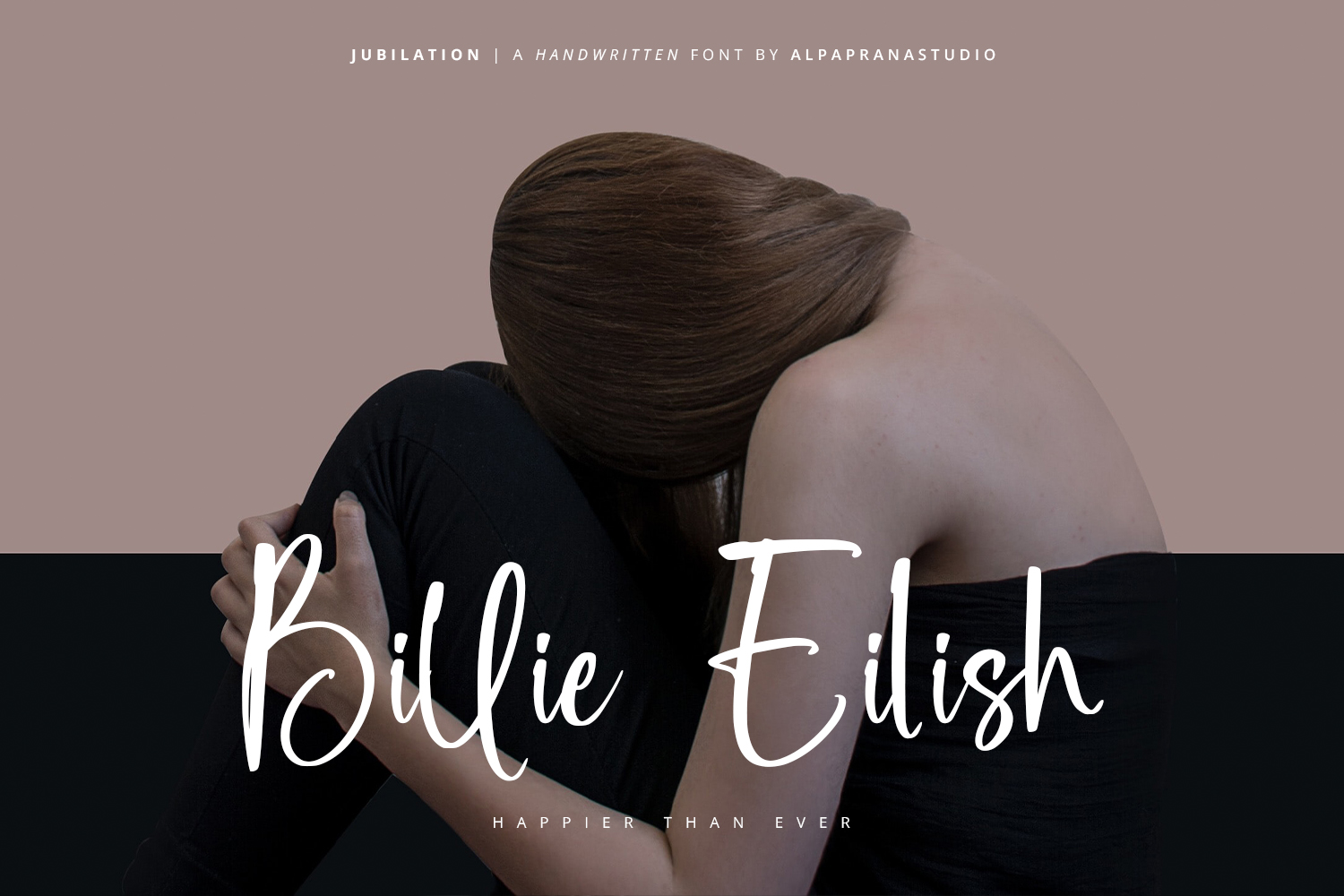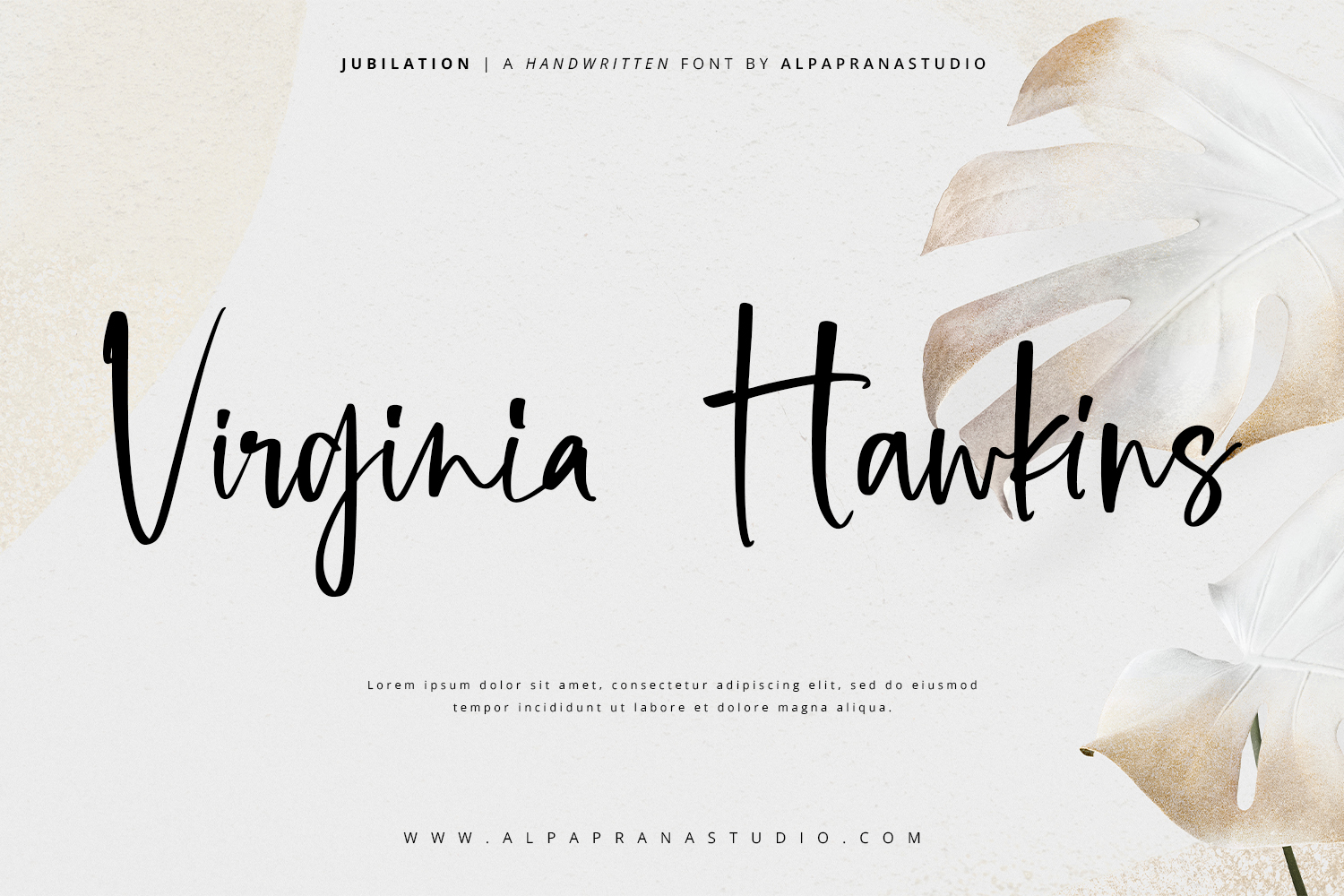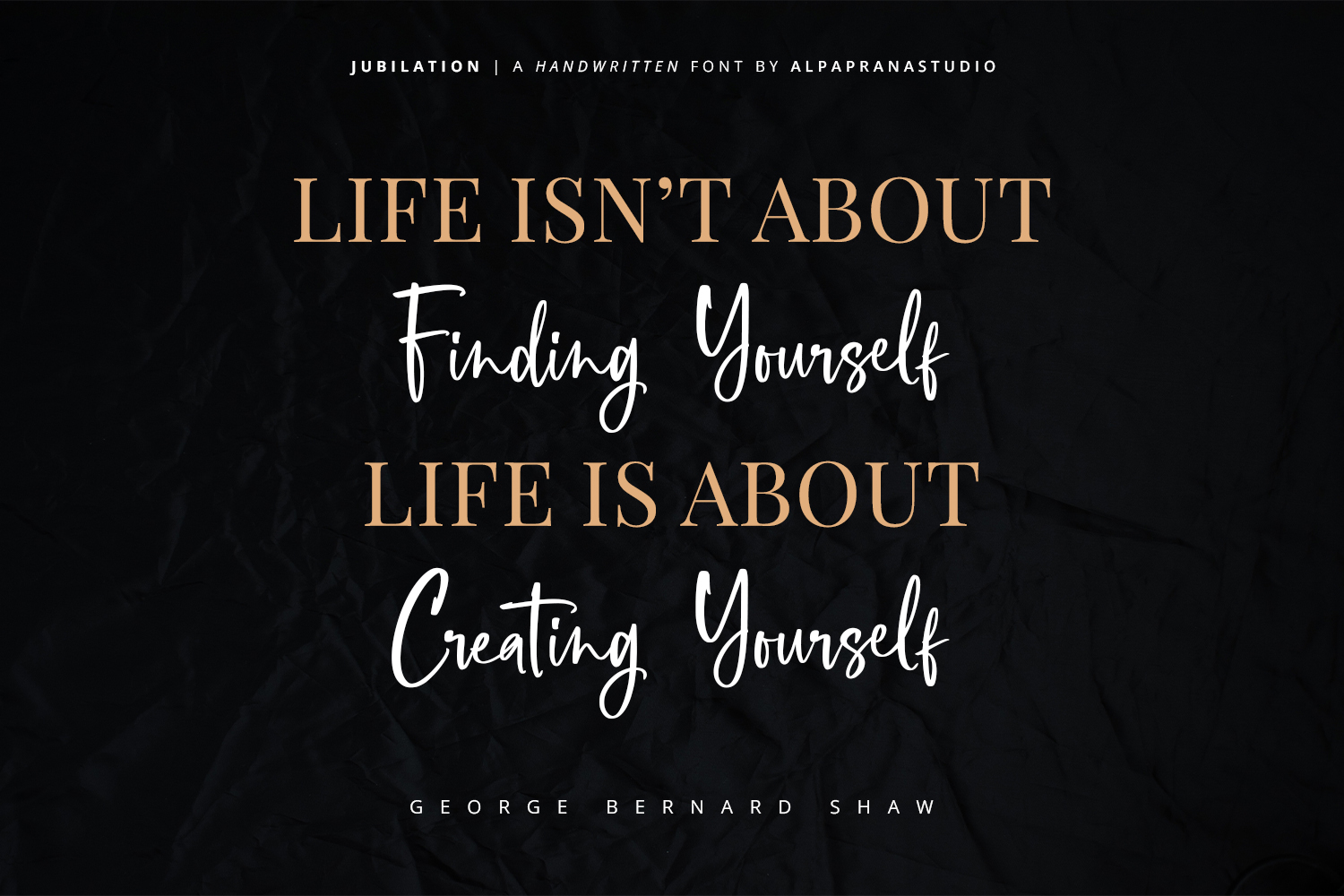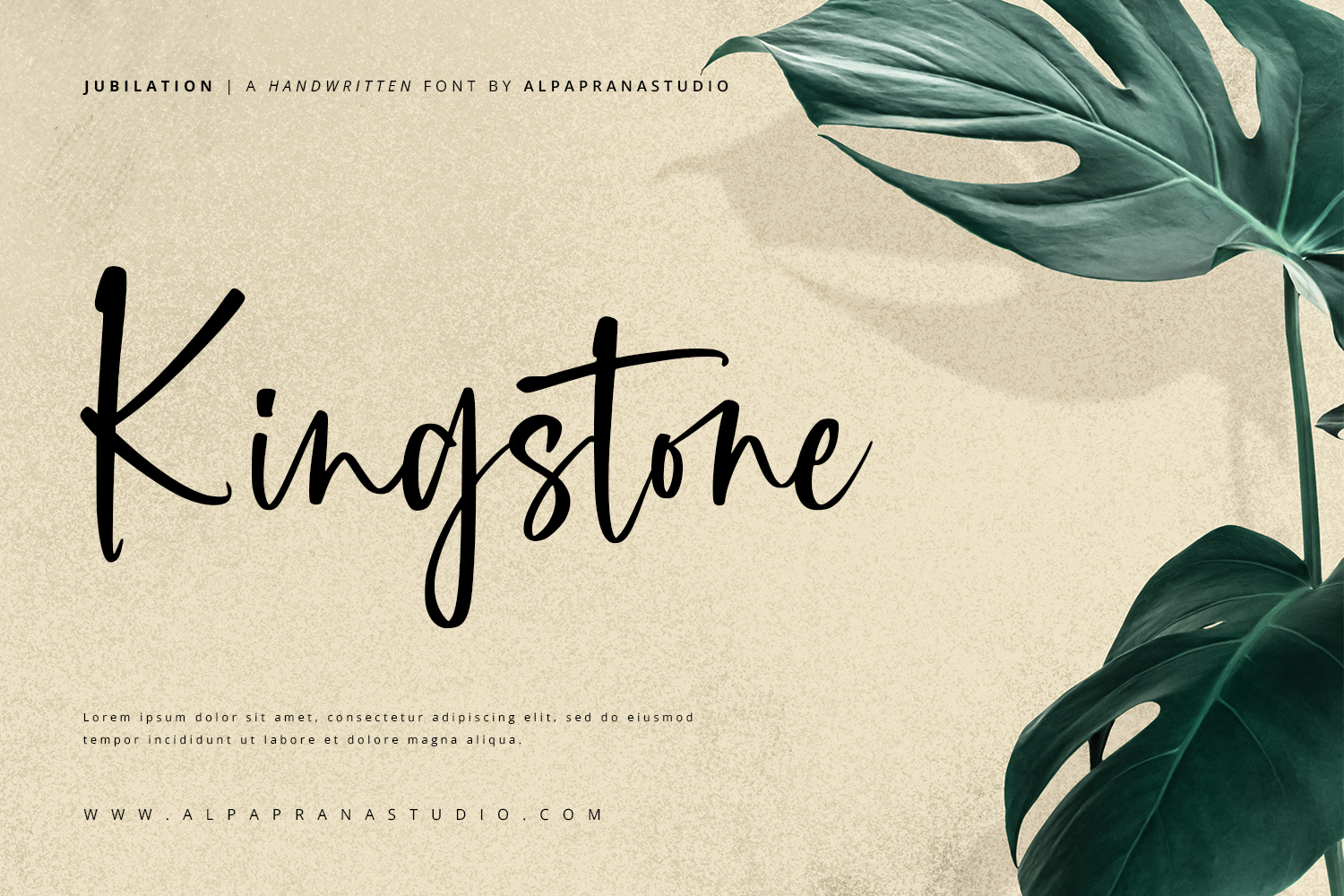
Jubilation Free Font
Jubilation Free Font is a modern and natural-looking signature script font. Fall in love with its stylish and elegant look and use it to create stunning designs.